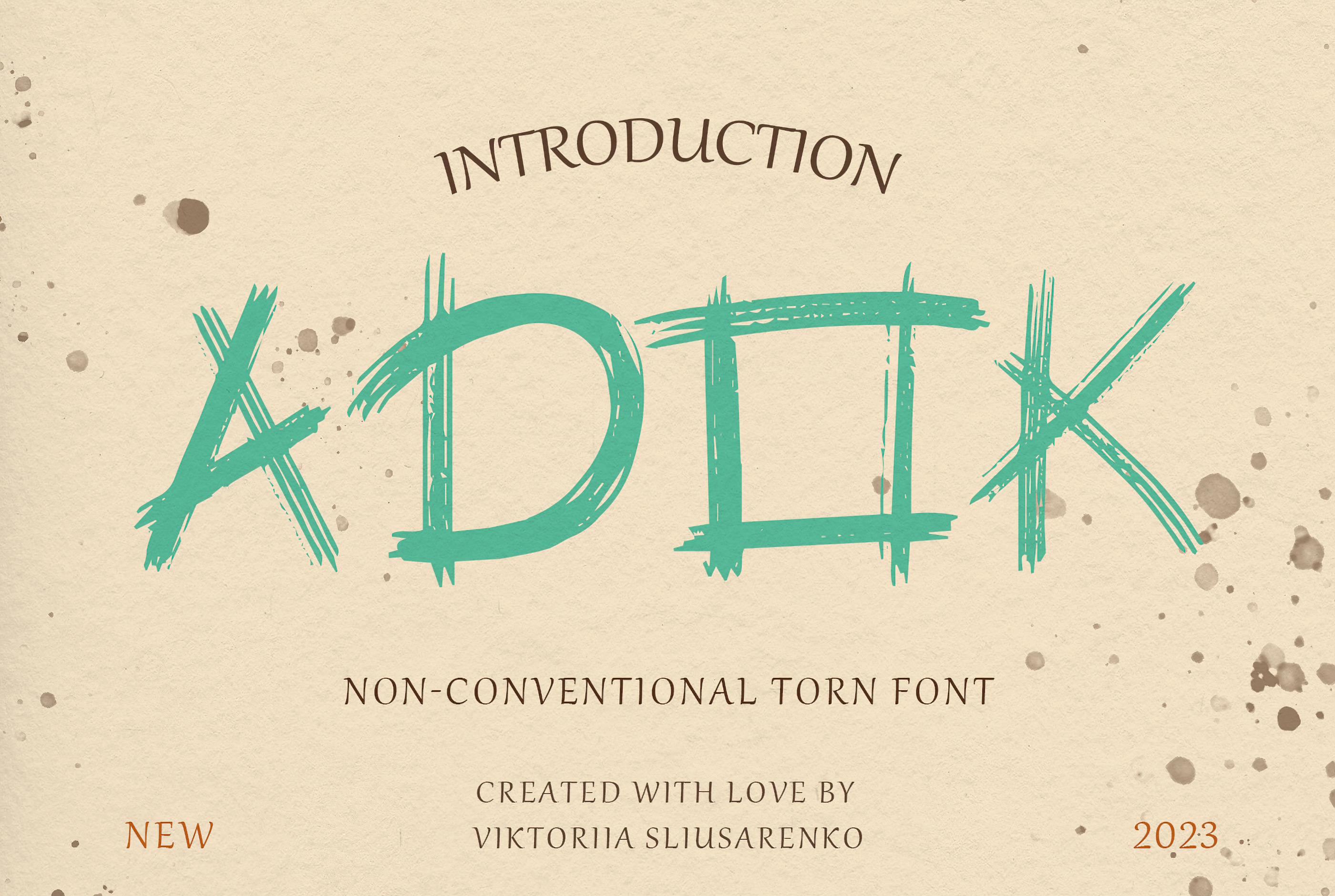
Adok decorative serif font
Discover Adok, a captivating blend of fonts, typography, calligraphy, and hand-lettered artistry. This extraordinary handwritten font is designed to infuse your designs with a personal touch. Its unique feature includes a torn edge, offering a nostalgic and vintage vibe.
Adok's natural and organic appearance gives the impression of words flowing effortlessly from a dry wooden stick, making it the perfect choice for a wide range of applications, from logos and branding to social media graphics and invitations. Its hand-drawn style effortlessly adds authenticity to any design, making it an incredibly versatile and invaluable asset for your font library.